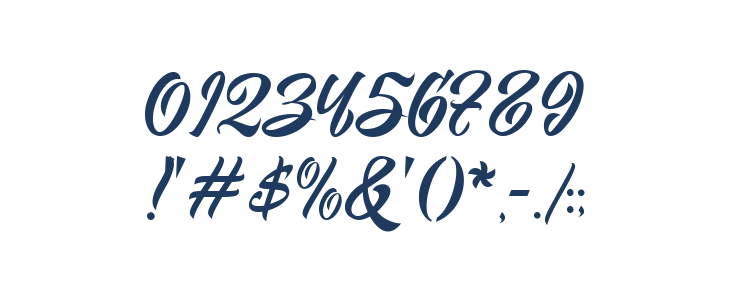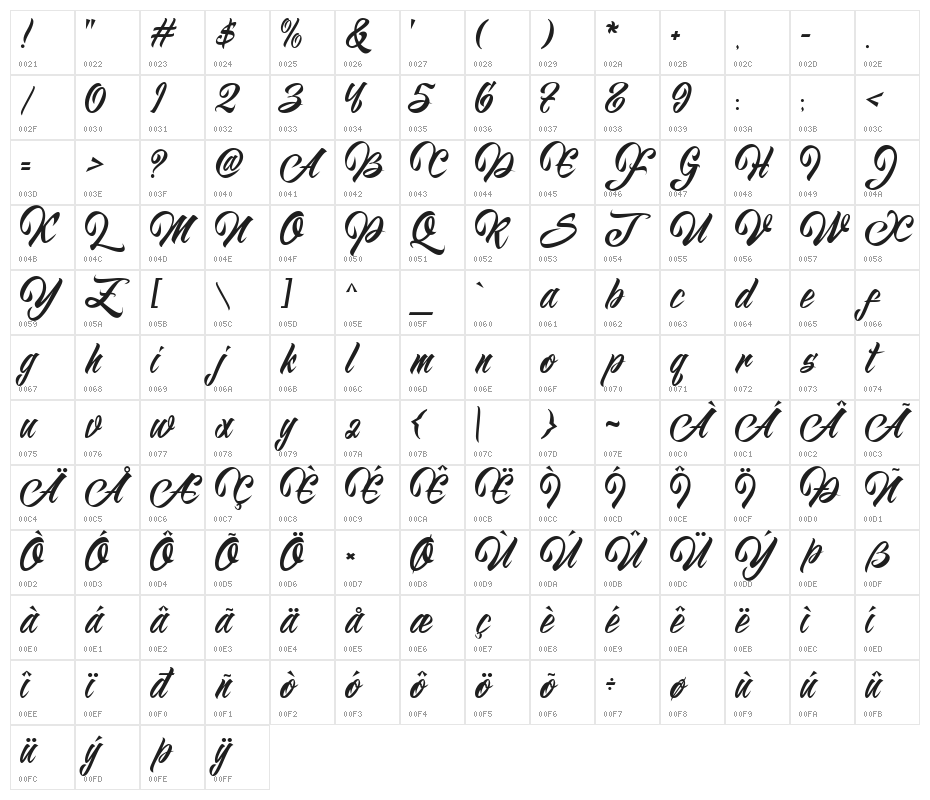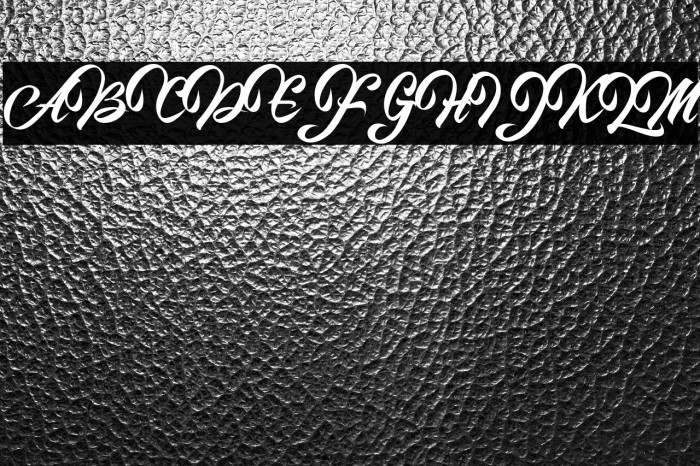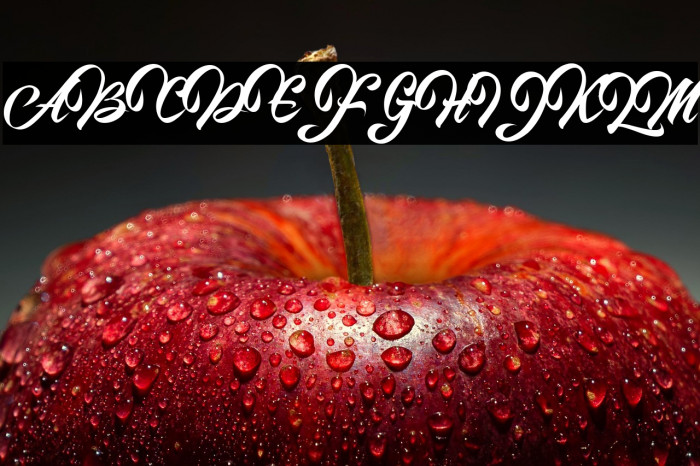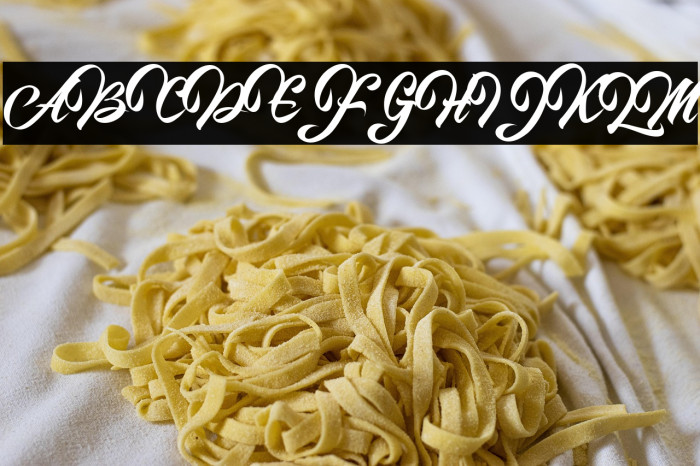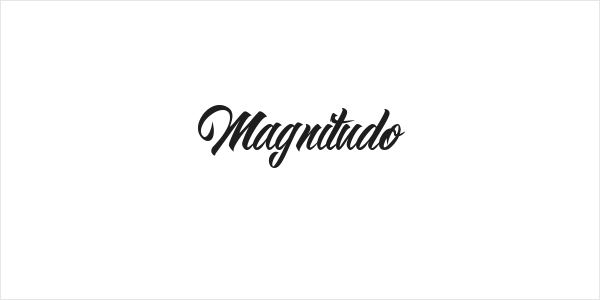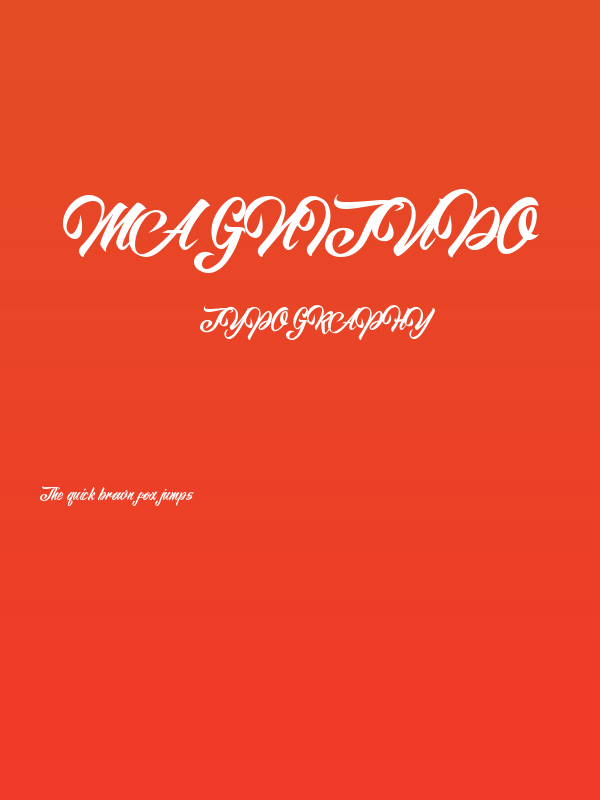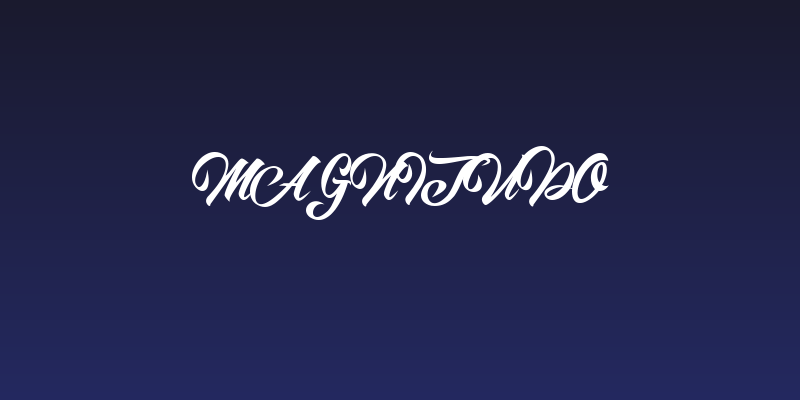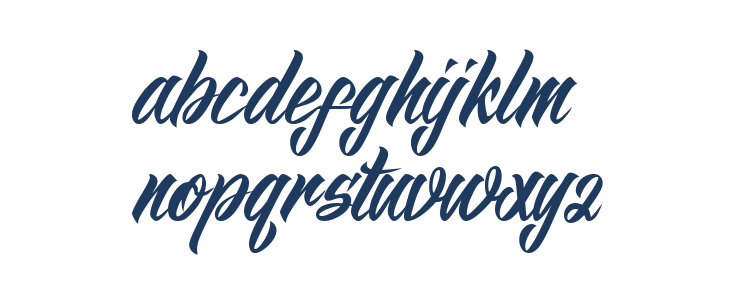
Magnitudo Font
Magnitudo Description
This font features a bold and expressive script style with a flowing, cursive design. The characters are interconnected, creating a sense of movement and elegance. The uppercase letters are ornate and slightly larger than the lowercase, which are equally decorative. Numbers and special characters maintain the same stylistic flair, ensuring consistency across all elements. The strokes are thick and confident, with high contrast between thick and thin lines, adding to the dramatic appearance. This font is ideal for making a statement with its artistic and dynamic look.